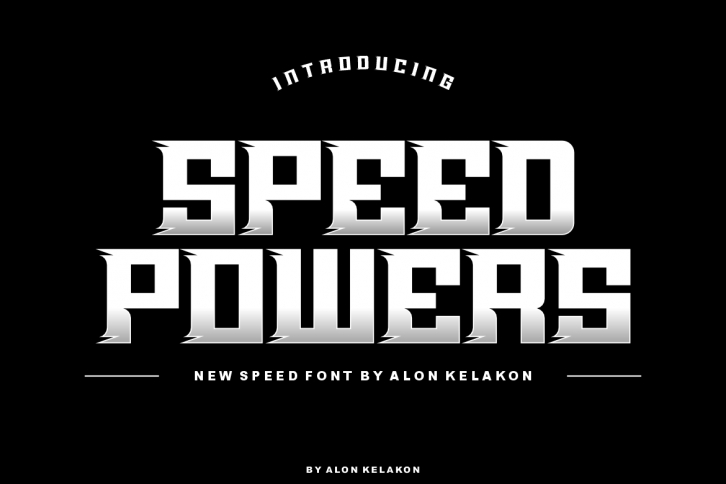
Speed Powers is an incredibly cool display font. With a modern yet whimsical style, this font gives a dynamic look that will bring each of your creative ideas to the highest level!. Ready to use for your design like labeling, clothing, movie screen, poster, movie title, gigs, album covers, logos, and much more.